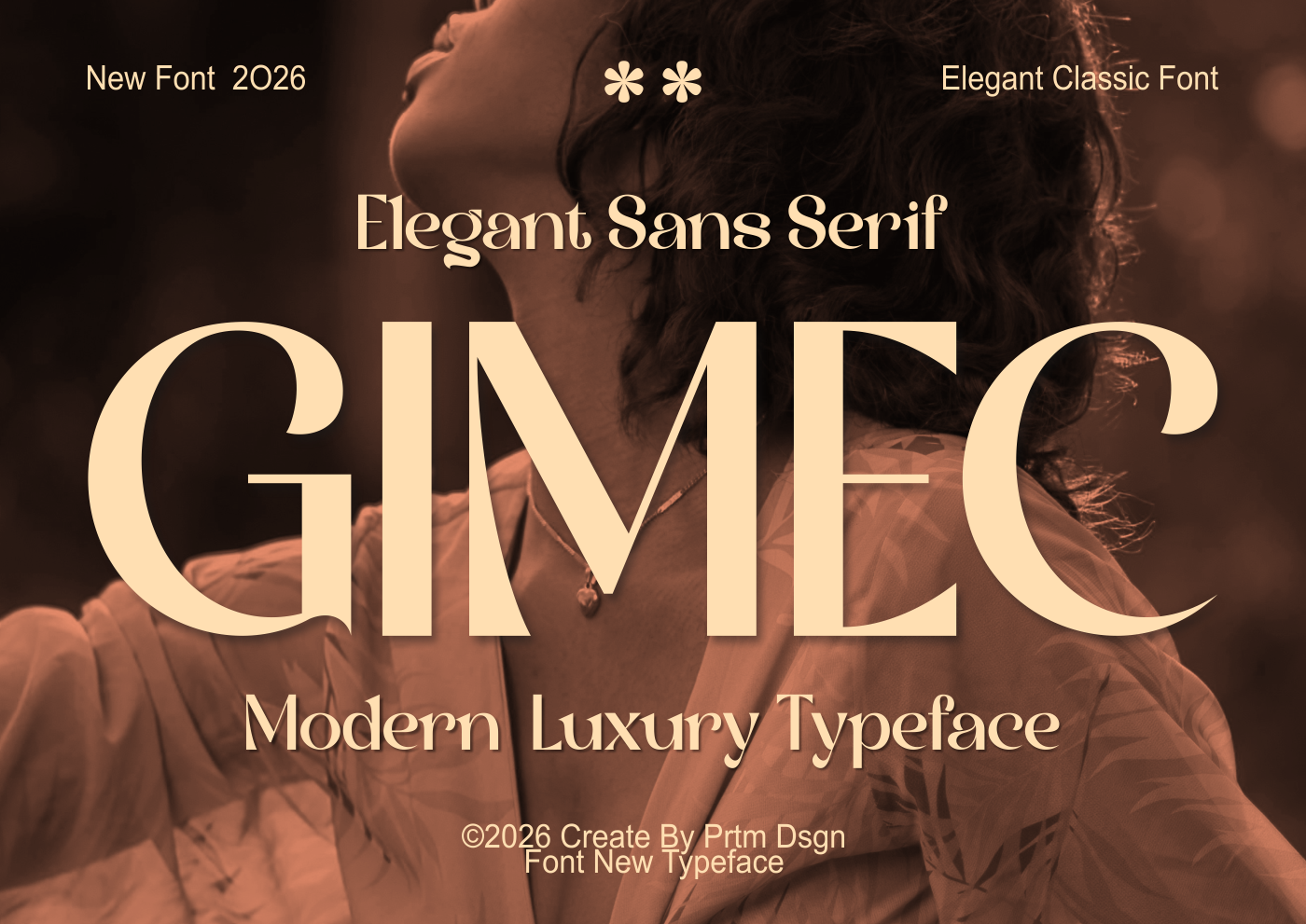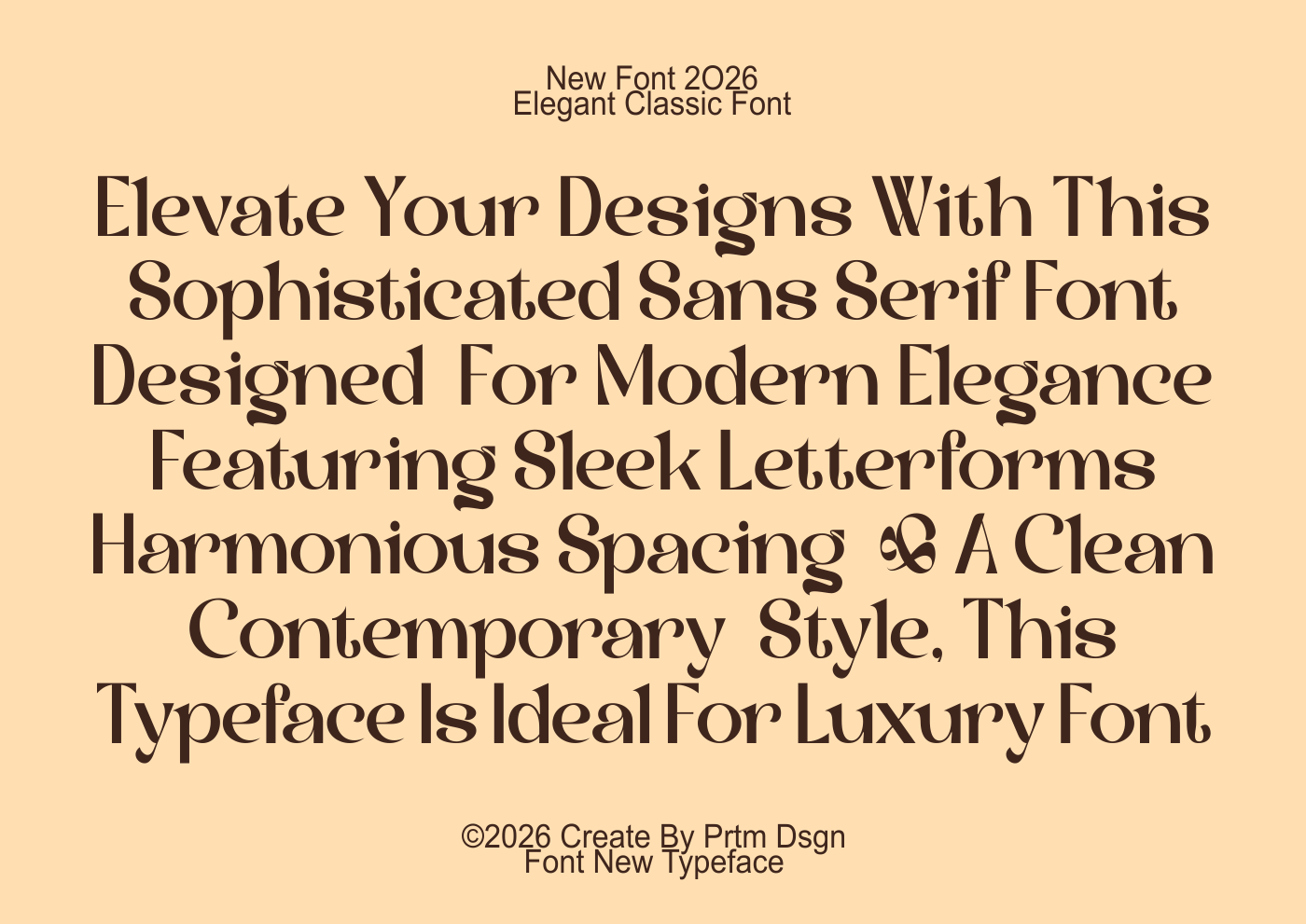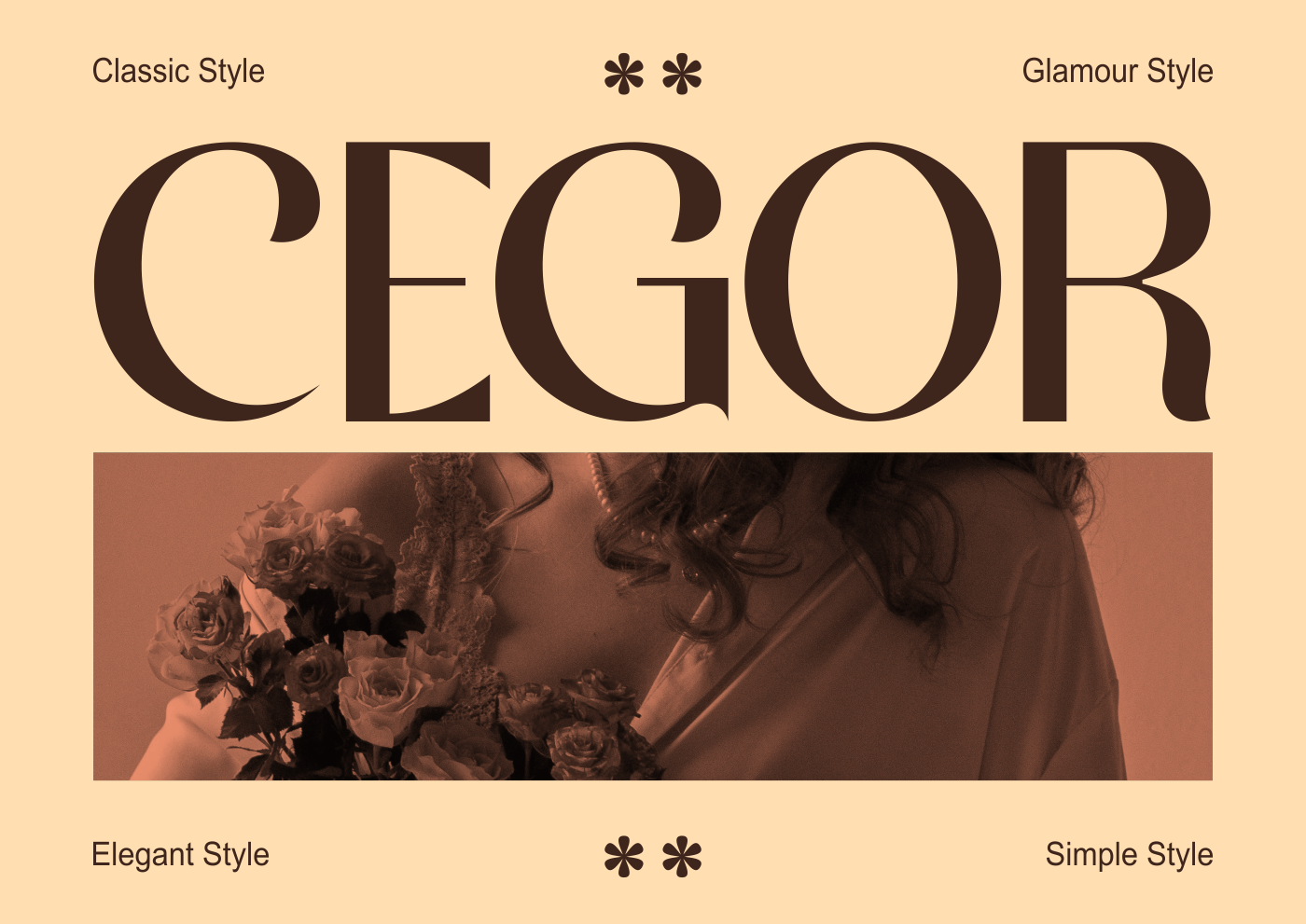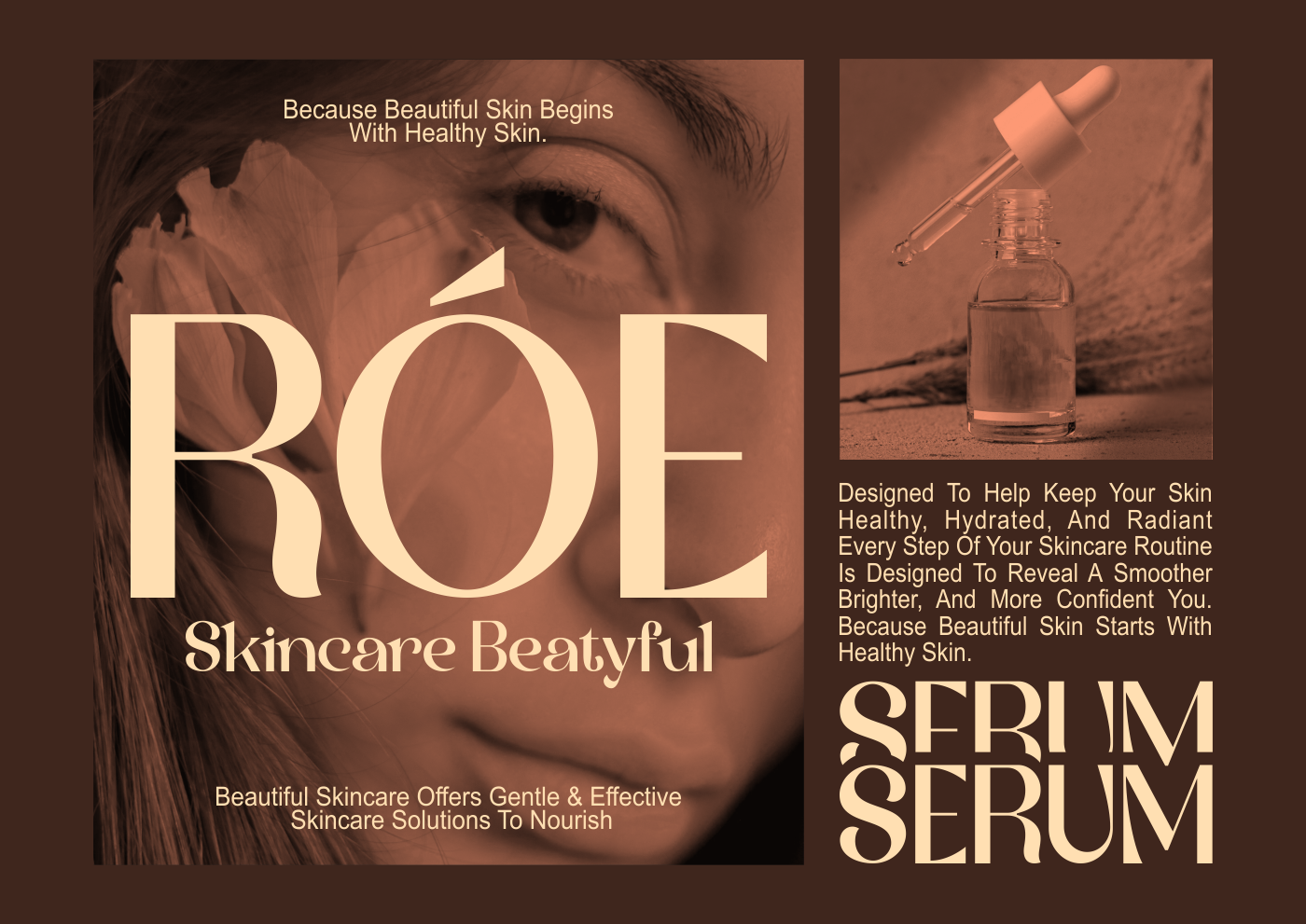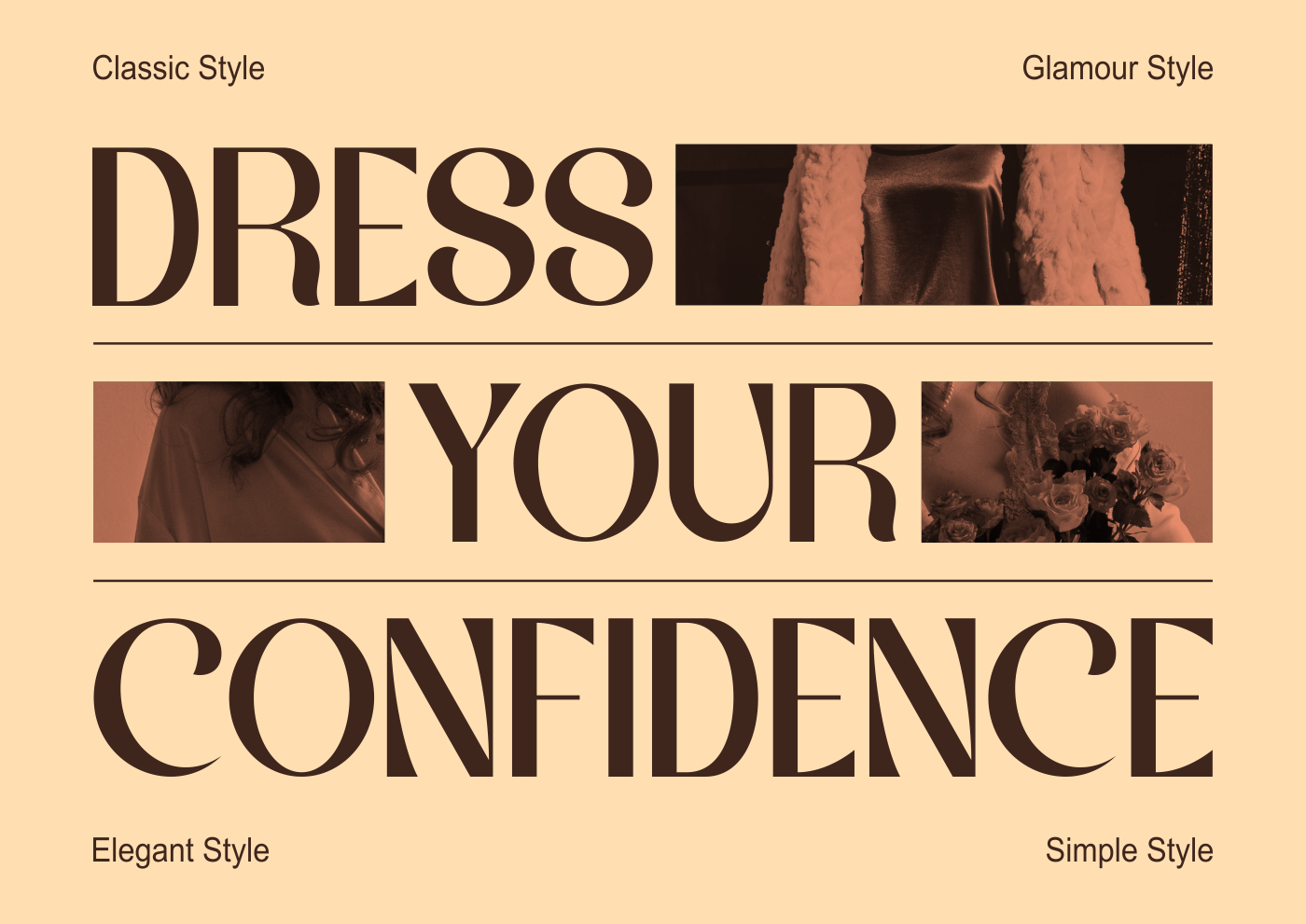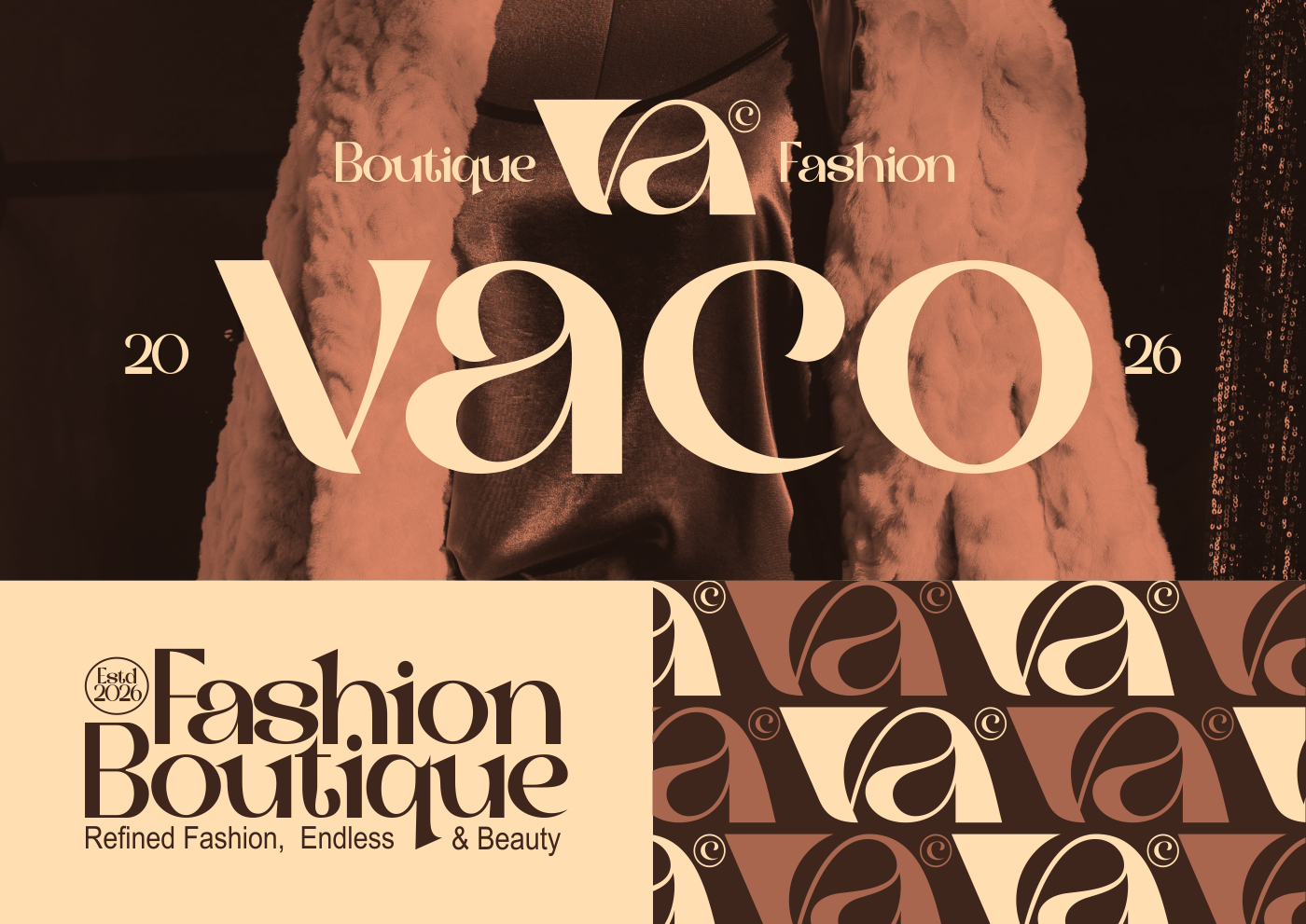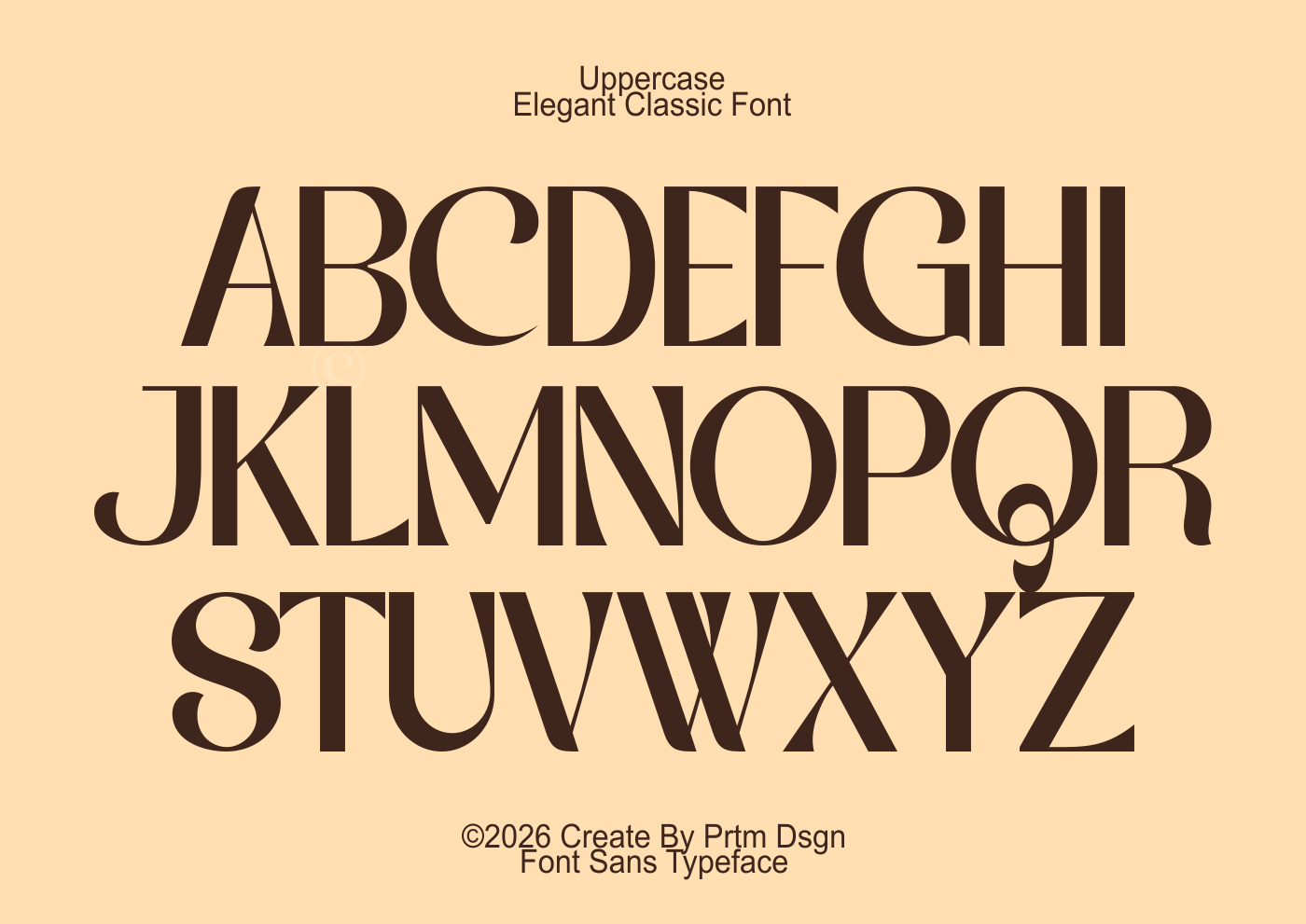
GIMEC is a modern and elegant sans serif display typeface that blends refined proportions with expressive, high-contrast letterforms. Designed to deliver a sophisticated and contemporary look, it features graceful curves, distinctive flared terminals, and balanced geometry that create a timeless visual identity.
Created for premium branding and editorial design, GIMEC is ideal for the fashion and beauty industries, luxury packaging, magazines, logos, advertising, and visual identity systems. Its elegant character strikes a perfect balance between modern simplicity and classic sophistication, ensuring every design composition feels special, refined, and memorable.